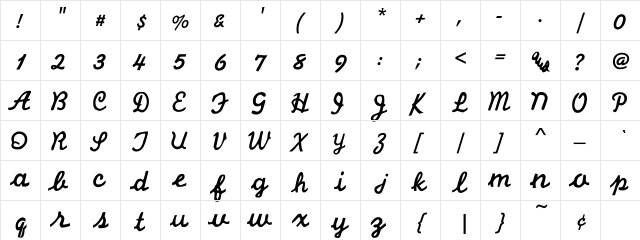
LHF Ballpark Script Regular
| Foundry | Tom Kennedy for Letterhead Fonts |
| Designer | Tom Kennedy for Letterhead Fonts |
Design Context for LHF Ballpark Script Typeface
LHF Ballpark Script flows with the natural rhythm of handwritten lettering, making it ideal for designs that call for warmth and personal expression.
Font Pairing: Combine LHF Ballpark Script with a simple geometric sans for maximum contrast — the tension between flowing curves and clean structure is a classic typographic pairing.
Pro Tip: Pair LHF Ballpark Script with a clean sans-serif for supporting text. The contrast between fluid script and geometric structure creates an elegant typographic hierarchy.